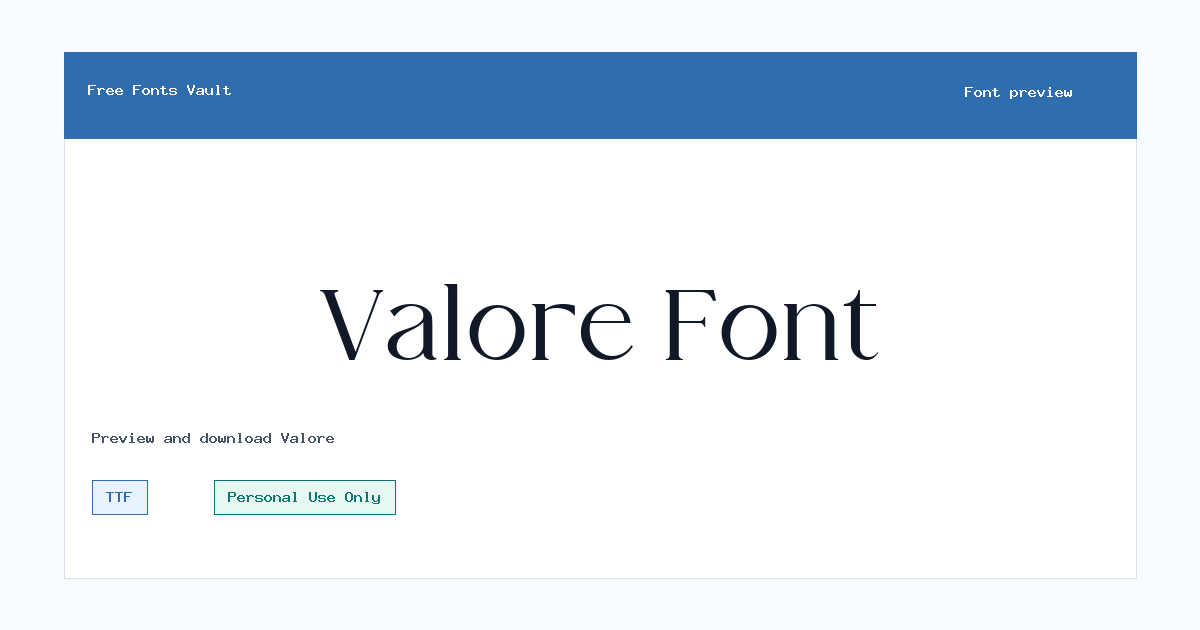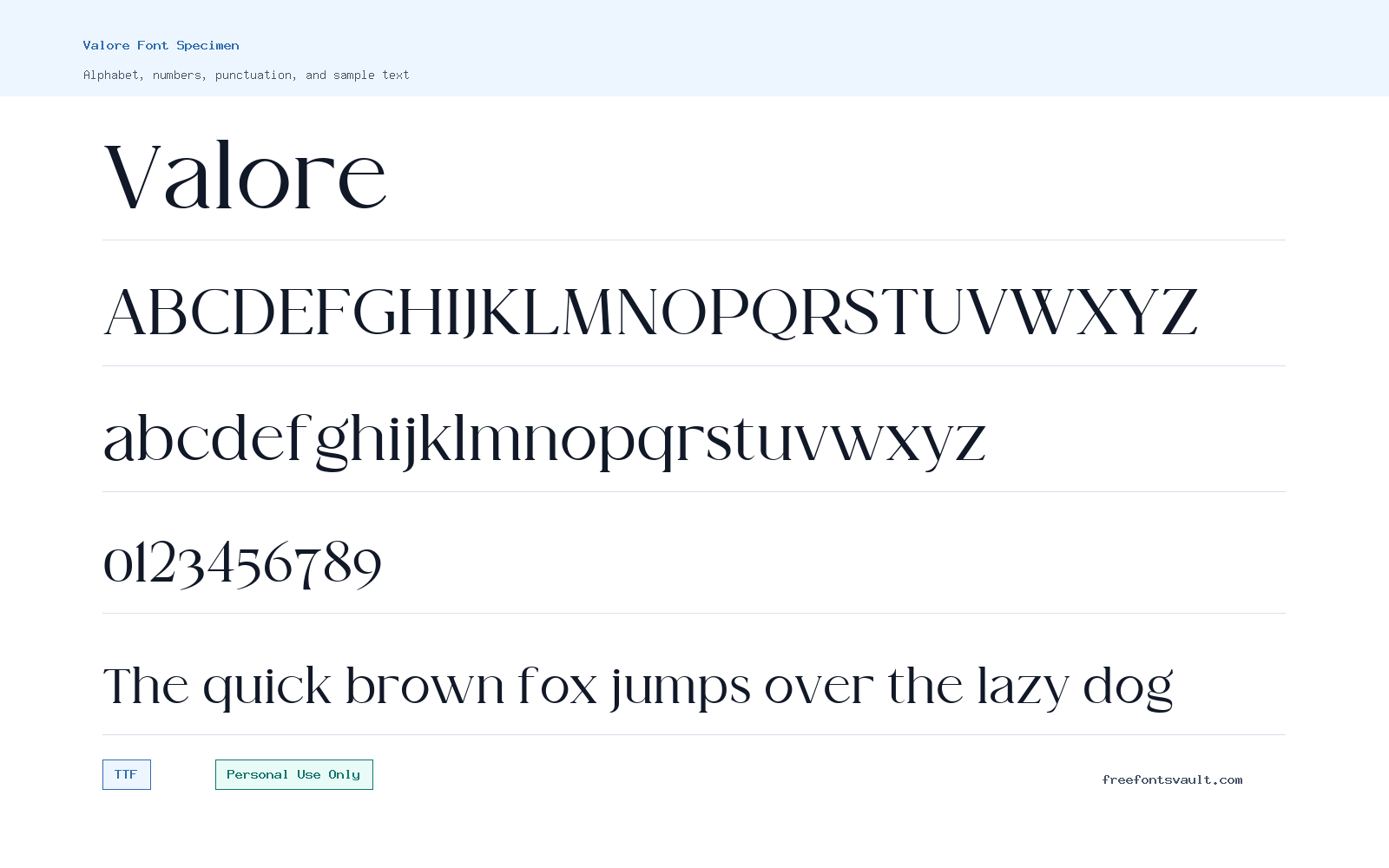
Valore
Valore is a serif font with a polished, editorial feel. Its regular style gives designers a refined option for display text, branding drafts, invitations, and other personal-use layouts where a classic serif voice is needed.
About Valore Font
Valore has the kind of structure visitors often look for in a serif display font: clear strokes, formal proportions, and a composed rhythm that works best when the letters have room to breathe. It is not a font to judge only from a single word sample. Try it in a short headline, a name, a quote, and a two-line title to see how the spacing, contrast, and uppercase forms behave at different sizes. Because only the regular weight is included here, the strongest results will usually come from careful sizing rather than relying on bold or light companion styles.
Use Valore when you want a clean serif mood without making the design feel too heavy. It can suit personal projects such as mood boards, poster concepts, wedding stationery drafts, personal logos, portfolio headers, quote graphics, social posts, and editorial-style title treatments. For longer paragraphs, test it carefully before committing. Many serif fonts with a display personality look elegant in titles but can feel tiring in dense body copy, especially on small screens. A practical approach is to use Valore for headings or focal text, then pair it with a simple sans serif or a highly readable text serif for supporting information.
- Serif design suited to headings, names, invitations, and personal display layouts
- Personal branding concepts, portfolio headers, and logo drafts
- Invitations, quote graphics, posters, and editorial-style title designs
What style of font is Valore?
Valore is a serif font. It is best tested in headlines, names, short titles, and decorative text rather than judged only as body copy.